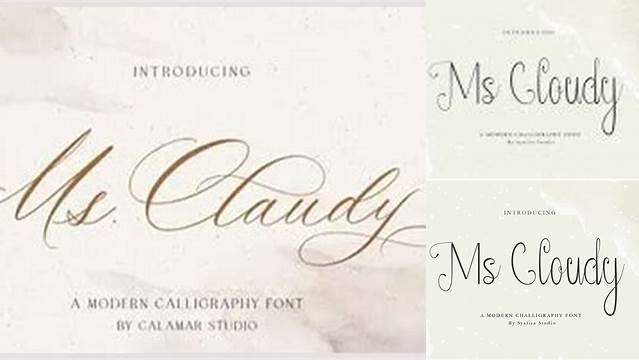
Ms Claudy Free Font: Your Ultimate Guide
Hey guys! Are you on the hunt for a stunning and versatile script font to elevate your design projects? Look no further! In this comprehensive guide, we'll dive deep into the world of Ms Claudy Free Font, exploring its elegant features, diverse applications, and how you can harness its beauty to create captivating designs. Whether you're a seasoned designer or just starting your creative journey, Ms Claudy offers a touch of sophistication that can transform your work. Let's get started and unlock the potential of this amazing typeface!
What is Ms Claudy Free Font?
Ms Claudy Free Font is a beautifully crafted script typeface that exudes elegance and charm. Its flowing lines, delicate curves, and refined letterforms make it a perfect choice for a wide range of design projects. Imagine your invitations, greeting cards, logos, and branding materials adorned with the graceful strokes of Ms Claudy. This font isn't just about aesthetics; it's about conveying a feeling, a mood, and a personality. The handwritten feel adds a personal touch, making your designs feel more authentic and relatable. But what exactly makes Ms Claudy stand out from the crowd? It's the meticulous attention to detail, the balanced contrast between thick and thin strokes, and the overall harmony of the letterforms. This font was designed to be both visually appealing and highly readable, ensuring that your message is delivered with clarity and style. Furthermore, its versatility allows it to be used in both digital and print mediums, making it a valuable asset in any designer's toolkit. Whether you're designing a website, creating social media graphics, or crafting a printed brochure, Ms Claudy can seamlessly adapt to your needs. So, let's explore further how you can harness the power of Ms Claudy to enhance your creative projects!
Key Features of Ms Claudy Font
When it comes to choosing the right font for your project, understanding its key features is crucial. Ms Claudy Font boasts a range of characteristics that make it a standout choice for designers. First and foremost, its elegant script style is the defining feature. The flowing lines and graceful curves create a sense of sophistication and refinement. This makes it ideal for projects that require a touch of class, such as wedding invitations, luxury branding, or high-end packaging. Beyond its aesthetic appeal, Ms Claudy also offers excellent readability. The letterforms are carefully crafted to ensure clarity, even at smaller sizes. This is particularly important for body text or when using the font in digital formats. You don't want your message to get lost in a sea of illegible characters! Another key feature is its versatility. Ms Claudy isn't a one-trick pony; it can be used in a wide variety of design contexts. From headlines and titles to body text and logos, it adapts seamlessly to different applications. This versatility is further enhanced by the inclusion of alternate characters and ligatures. These stylistic variations add a unique flair to your designs, allowing you to customize the font to your specific needs. Imagine using elegant swashes and flourishes to create a truly bespoke look! Furthermore, Ms Claudy often comes with a full set of uppercase and lowercase letters, numbers, and punctuation marks. This comprehensive character set ensures that you have everything you need to create complete and polished designs. And let's not forget about multilingual support. Many versions of Ms Claudy include characters for various languages, making it a truly global font. By understanding these key features, you can make informed decisions about how to best utilize Ms Claudy in your projects and achieve stunning results.
Ideal Uses for Ms Claudy Free Font
So, you're intrigued by Ms Claudy Free Font, but where exactly can you use it? The possibilities are vast, guys! This font's elegant and versatile nature makes it a perfect fit for a multitude of design projects. Let's explore some ideal use cases. One of the most popular applications is in wedding invitations and stationery. The graceful script style adds a touch of romance and sophistication, setting the tone for a memorable event. Imagine your names beautifully calligraphed on the invitation, or elegant thank-you cards adorned with Ms Claudy. It's a surefire way to impress your guests! Beyond weddings, Ms Claudy shines in branding and logo design. If you're looking to create a logo that exudes luxury, elegance, or femininity, this font is an excellent choice. Think high-end boutiques, beauty salons, or artisanal food brands. The handwritten feel adds a personal touch, making your brand feel more approachable and authentic. Another fantastic use case is in greeting cards and personalized gifts. Whether it's a birthday card, a heartfelt note, or a custom-made mug, Ms Claudy adds a special touch. The beautiful script can transform an ordinary message into a cherished keepsake. For social media graphics and digital marketing materials, Ms Claudy can help you stand out from the crowd. Its eye-catching style is perfect for creating engaging headlines, quotes, or call-to-actions. Just be mindful of readability, especially on smaller screens. In the realm of print design, Ms Claudy is a winner for book covers, magazine layouts, and posters. Its elegant aesthetic can elevate the overall design and capture the reader's attention. Whether you're designing a novel cover or a promotional poster, Ms Claudy can add a touch of sophistication. And let's not forget about packaging design. If you're selling artisanal products, gourmet foods, or luxury goods, Ms Claudy can enhance the perceived value and appeal of your packaging. Imagine a beautifully labeled jar of honey or a box of handcrafted chocolates adorned with this elegant font. These are just a few examples, guys. The beauty of Ms Claudy lies in its adaptability. With a little creativity, you can find countless ways to incorporate it into your designs and make them truly shine.
Tips for Using Ms Claudy in Your Designs
Alright, you've downloaded Ms Claudy Free Font, you've installed it, and you're ready to unleash its beauty on the world! But before you dive headfirst into your designs, let's chat about some tips and tricks for using this font effectively. After all, even the most gorgeous font can lose its luster if it's not used thoughtfully, right? First things first, consider the context of your design. Ms Claudy is an elegant script font, so it's best suited for projects that require a touch of sophistication, romance, or femininity. Think wedding invitations, luxury branding, or heartfelt greeting cards. Using it for a gritty action movie poster? Probably not the best fit. Pairing fonts is an art, guys. When using Ms Claudy, you'll want to choose a complementary font for body text or secondary elements. A clean and simple sans-serif font, like Open Sans or Montserrat, often works well. The contrast between the elegant script and the modern sans-serif creates a visually appealing balance. Don't overuse it! While Ms Claudy is stunning, it's best used sparingly. Too much of a good thing can become overwhelming. Use it for headlines, titles, or logos, and reserve a simpler font for body text. This will ensure that your design remains readable and visually harmonious. Pay attention to letter spacing and kerning. Script fonts can sometimes have awkward spacing between letters. Adjusting the letter spacing and kerning can significantly improve the readability and overall appearance of the font. Most design software offers tools for fine-tuning these settings. Experiment with different weights and styles. Some versions of Ms Claudy may come with different weights (e.g., regular, bold) or styles (e.g., italic). Experimenting with these variations can add depth and visual interest to your designs. Use it for emphasis. Ms Claudy is a great font for highlighting key words or phrases. Its elegant script will draw the viewer's eye and make your message stand out. And finally, have fun and be creative! Don't be afraid to experiment with different ways of using Ms Claudy in your designs. The best way to learn is by doing, so go ahead and unleash your inner artist! With these tips in mind, you'll be well on your way to creating stunning designs with Ms Claudy Free Font.
Alternatives to Ms Claudy Font
Okay, so Ms Claudy Free Font is pretty awesome, but maybe you're looking for something slightly different? Or perhaps you want to expand your font library with some similar styles? No worries, guys! There's a whole universe of beautiful script fonts out there. Let's explore some alternatives to Ms Claudy that you might want to check out. One popular alternative is Great Vibes. This elegant script font shares a similar aesthetic with Ms Claudy, featuring flowing lines and graceful curves. It's a great choice for wedding invitations, logos, and branding materials. Another excellent option is Pacifico. This casual and friendly script font has a more relaxed feel than Ms Claudy, making it perfect for projects that require a touch of warmth and personality. Think blog headers, social media graphics, or handwritten notes. If you're looking for a font with a slightly more modern edge, consider Playlist Script. This trendy script font has a bold and confident style, making it a great choice for headlines, posters, and packaging design. For a more traditional and formal script, Alex Brush is a fantastic option. This elegant calligraphy font exudes sophistication and refinement, making it ideal for invitations, certificates, and formal announcements. Another noteworthy alternative is Lobster. This bold and distinctive script font has a retro feel, making it a great choice for vintage-inspired designs. Think posters, logos, or packaging with a classic touch. And let's not forget about Yellowtail. This quirky and playful script font has a unique personality, making it perfect for projects that need a touch of whimsy. Think children's books, greeting cards, or fun social media graphics. When choosing an alternative to Ms Claudy, consider the overall style and tone of your project. Do you need something elegant and formal, or casual and friendly? Do you want a font that's bold and modern, or traditional and classic? By exploring these alternatives, you can find the perfect script font to complement your designs and bring your creative vision to life. And remember, guys, don't be afraid to experiment! Try out different fonts and see what works best for you.
Conclusion: Embrace the Elegance of Ms Claudy
So, there you have it, guys! A comprehensive exploration of Ms Claudy Free Font, its features, uses, and alternatives. We've delved into its elegant script style, its versatility, and its potential to elevate your designs. From wedding invitations to logos, from greeting cards to social media graphics, Ms Claudy offers a touch of sophistication that can transform your creative projects. Whether you're a seasoned designer or just starting your journey, this font is a valuable asset to have in your toolkit. Its graceful curves and refined letterforms evoke a sense of timeless beauty, making it a perfect choice for projects that require a touch of class. But remember, guys, the key to using any font effectively is to understand its personality and apply it thoughtfully. Consider the context of your design, pair it with complementary fonts, and don't be afraid to experiment. With a little creativity and attention to detail, you can harness the power of Ms Claudy to create stunning and memorable designs. And if Ms Claudy isn't quite the perfect fit for your project, don't worry! There are plenty of other beautiful script fonts out there to explore. From Great Vibes to Pacifico, from Alex Brush to Lobster, the world of typography is vast and full of possibilities. So, go ahead and embrace the elegance of Ms Claudy, or venture out and discover your own favorite script font. The most important thing is to have fun, be creative, and let your designs shine! Happy designing, guys!